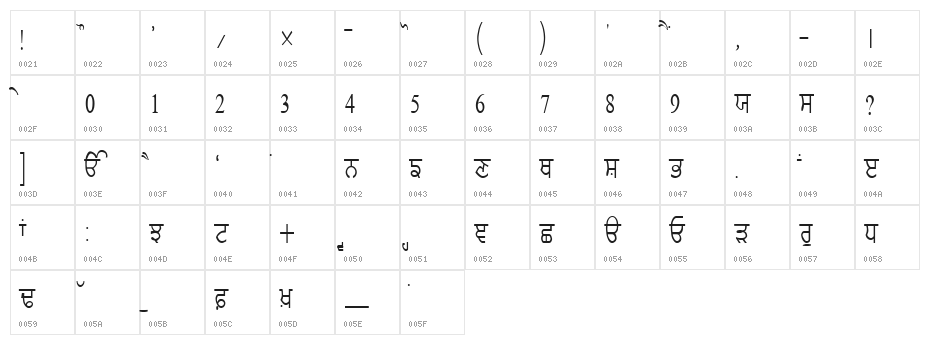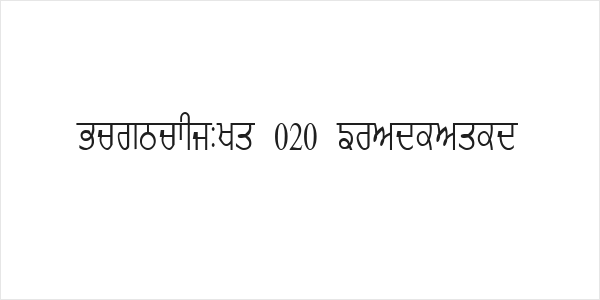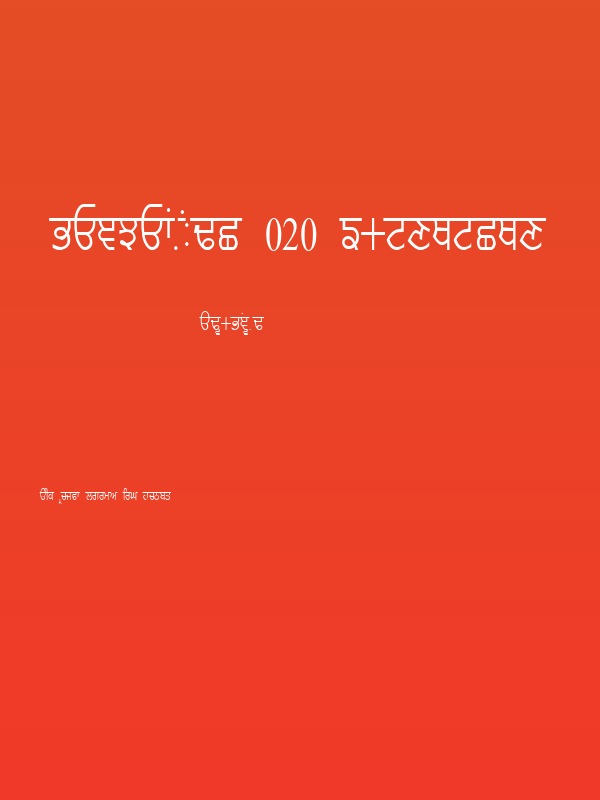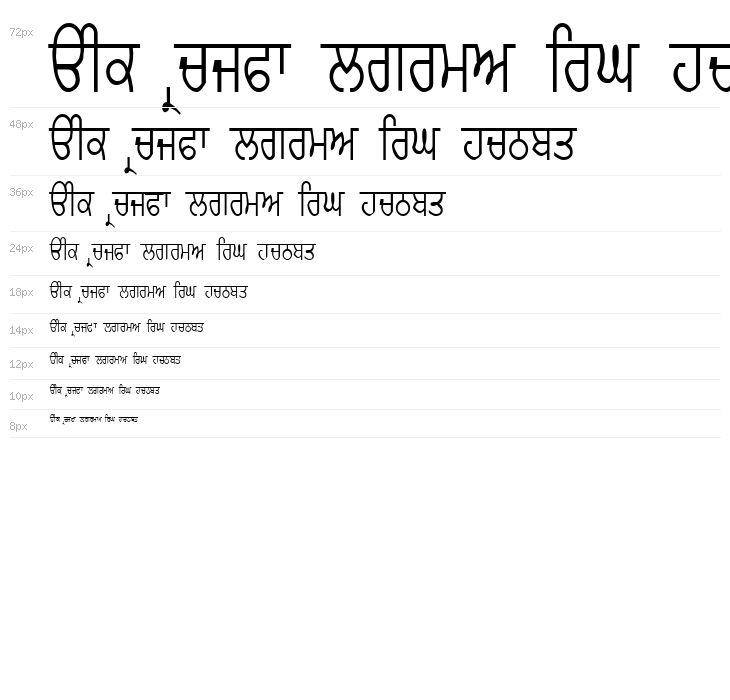
GurmukhiLys 020 Condensed Font
GurmukhiLys 020 Condensed Description
This font features the Gurmukhi script, characterized by its distinct horizontal line running along the top of the letters, known as the 'headstroke'. The characters are well-defined with a balanced structure, offering a clear and legible appearance. The numerals are straightforward and align well with the overall style of the script. The special characters are integrated seamlessly, maintaining the aesthetic consistency of the font. The condensed nature of the font allows for efficient use of space while preserving readability.
| Use Case | Body text, Educational materials |
| Proposed Projects | Ideal for Punjabi language publications, educational materials, and cultural projects requiring Gurmukhi script. |